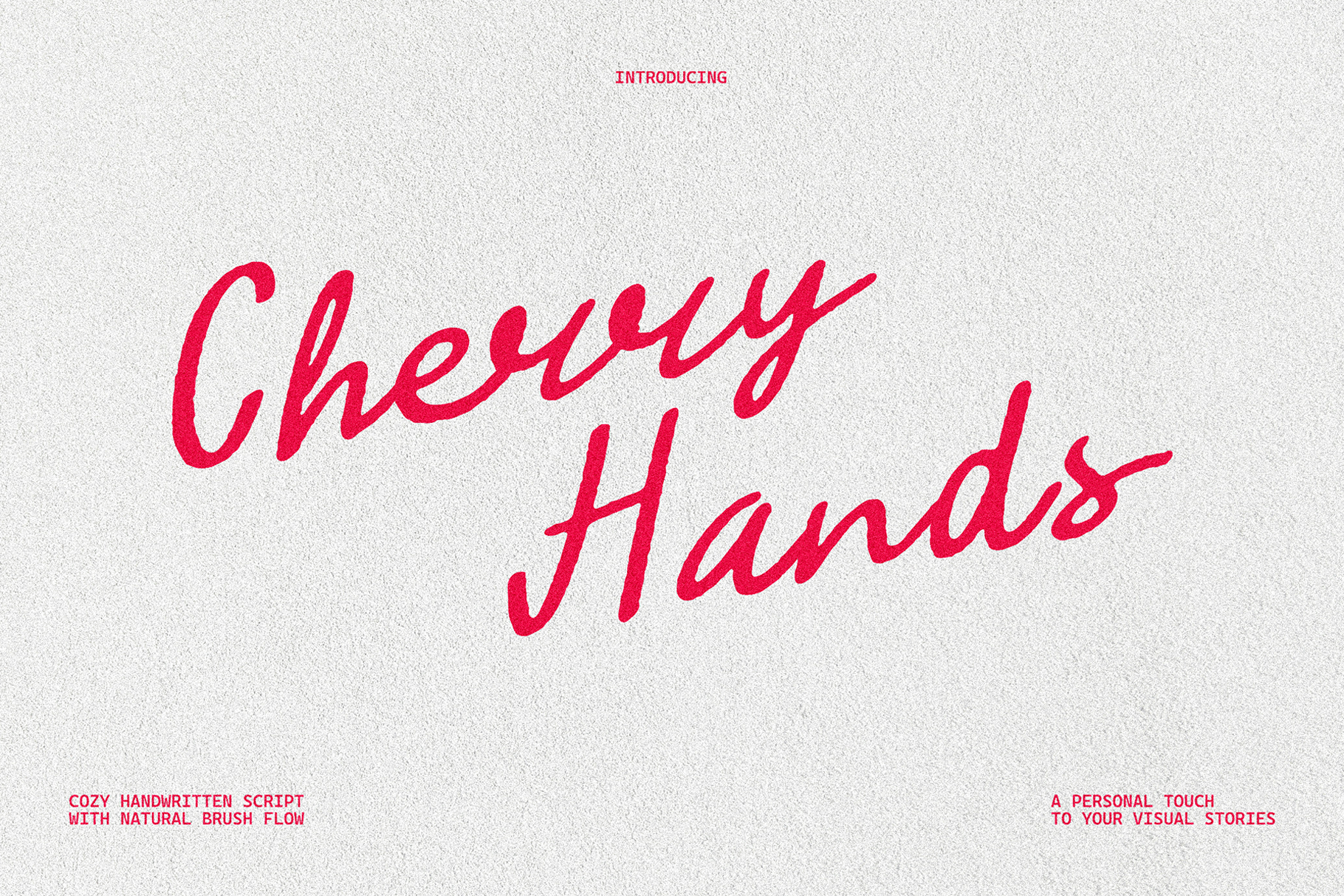
CherryHands- Retro Script Font
Cherry Hands is a natural handwritten script that brings a personal touch to your visual stories. Each stroke is crafted to feel organic and human, making it perfect for designers who love authentic textures and emotional depth in their work.
This font blends the softness of brush handwriting with a confident flow, creating a sense of warmth and sincerity. Ideal for branding, packaging, social media, or festive designs that call for something heartfelt and beautifully imperfect.
Cherry Hands captures the emotion of human handwriting while staying clean and readable, suitable for both modern and nostalgic aesthetics.